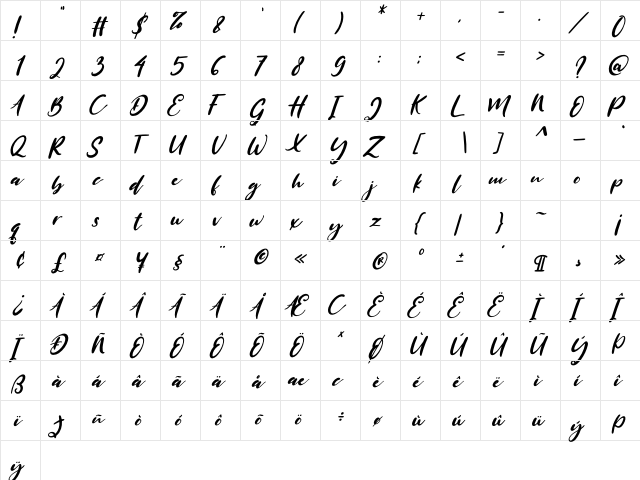
Mersella Italic Font Preview
Mersella Italic
Design Context for Mersella Typeface
Mersella is a composed and adaptable typeface that performs quietly and consistently across a wide range of design contexts. The slanted form adds forward momentum and visual energy.